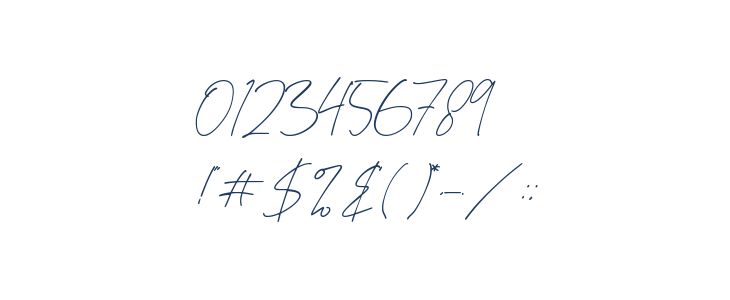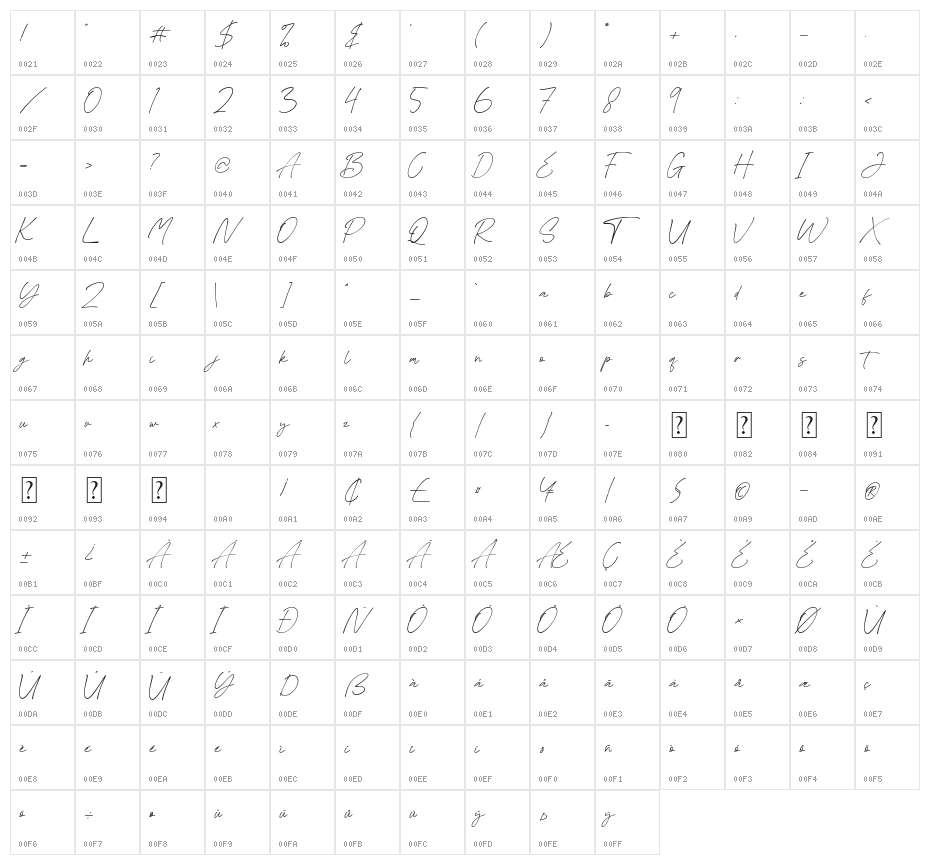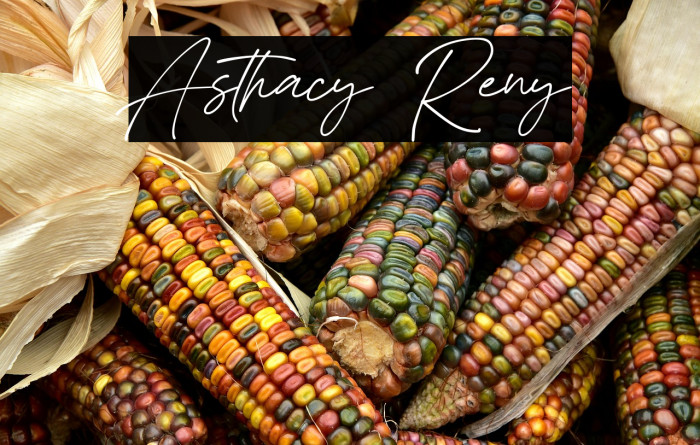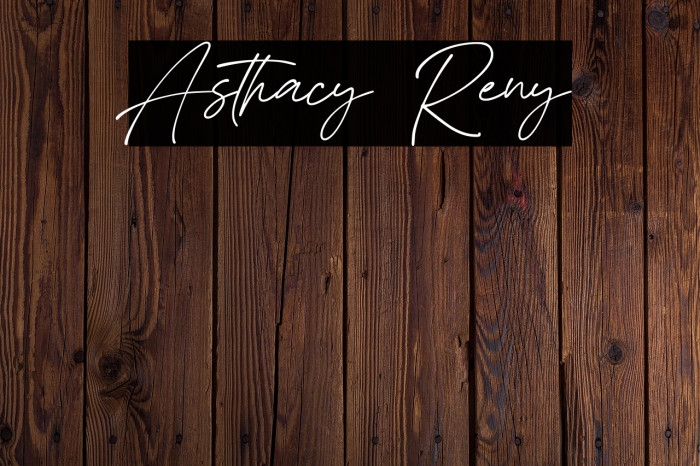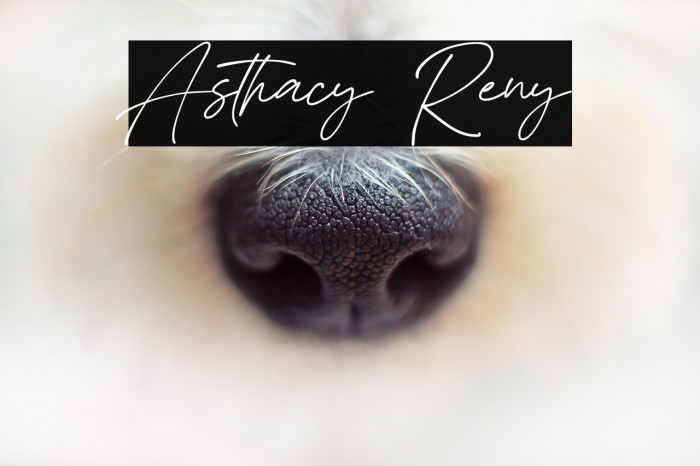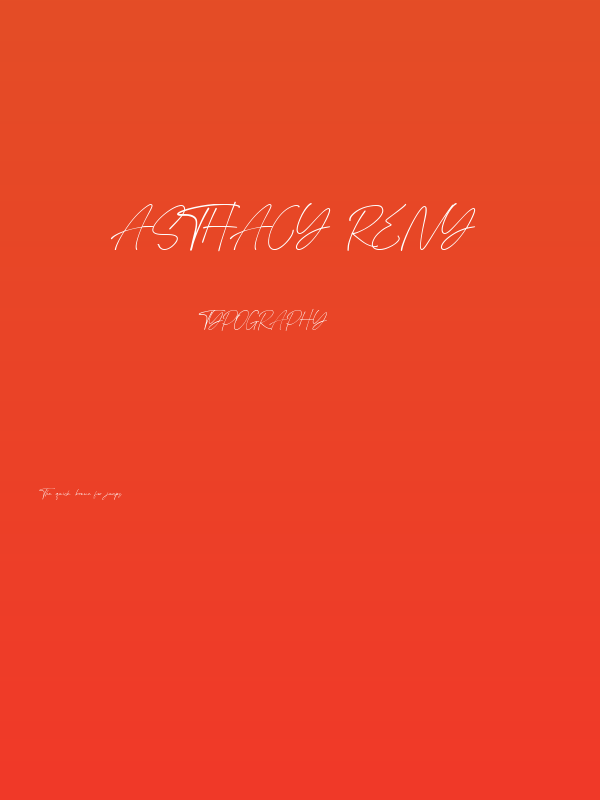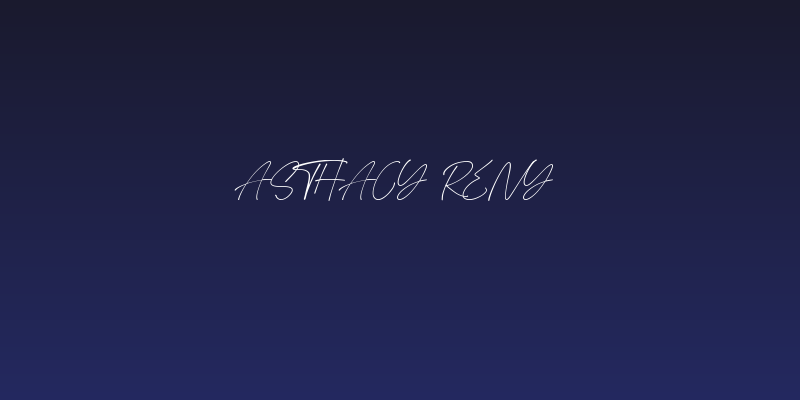
Asthacy Reny Font
Asthacy Reny Description
This font features a flowing, cursive style that mimics natural handwriting. The letters are elegantly connected, with a slight slant to the right, giving it a dynamic and fluid appearance. The strokes are thin and consistent, providing a delicate and sophisticated look. The uppercase letters are slightly larger and more pronounced, while the lowercase letters maintain a consistent height, enhancing readability. The numerals and special characters are designed to match the overall cursive theme, ensuring a cohesive appearance across all characters.
| Overall Style | Elegant, Handwritten |
| Use Case | Logos, Invitations, Personal Branding |
| Proposed Projects | Ideal for wedding invitations, personal branding, greeting cards, and elegant logos. |